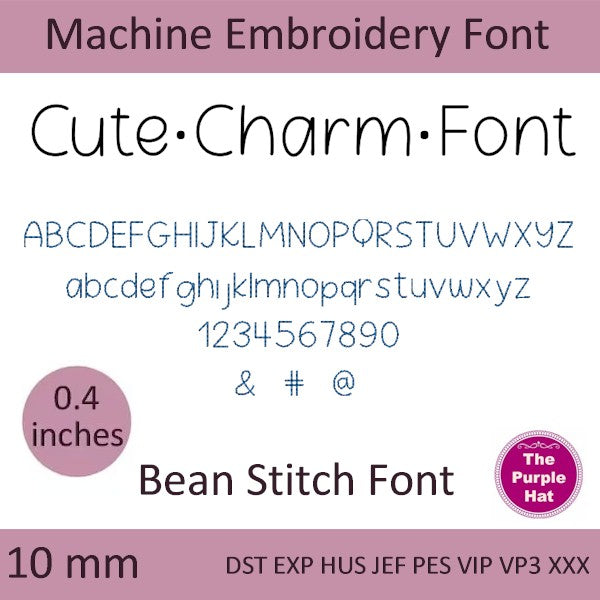
Cute Charm bean triple stitch machine embroidery font 10mm 0.4 inches
🎀 Cute Charm Triple Stitch Font
A sweet and tiny font, perfect for adding adorable details to your embroidery projects!
🧵 Name: Cute Charm
🔠 Uppercase Letters: A-Z
🔡 Lowercase Letters: a-z
🔢 Numbers: 0-9
✏️ Punctuation: Some included
📏 Size: 10 mm (approx. 0.4 inches)
✨ Style: Triple stitch for a delicate, handmade look